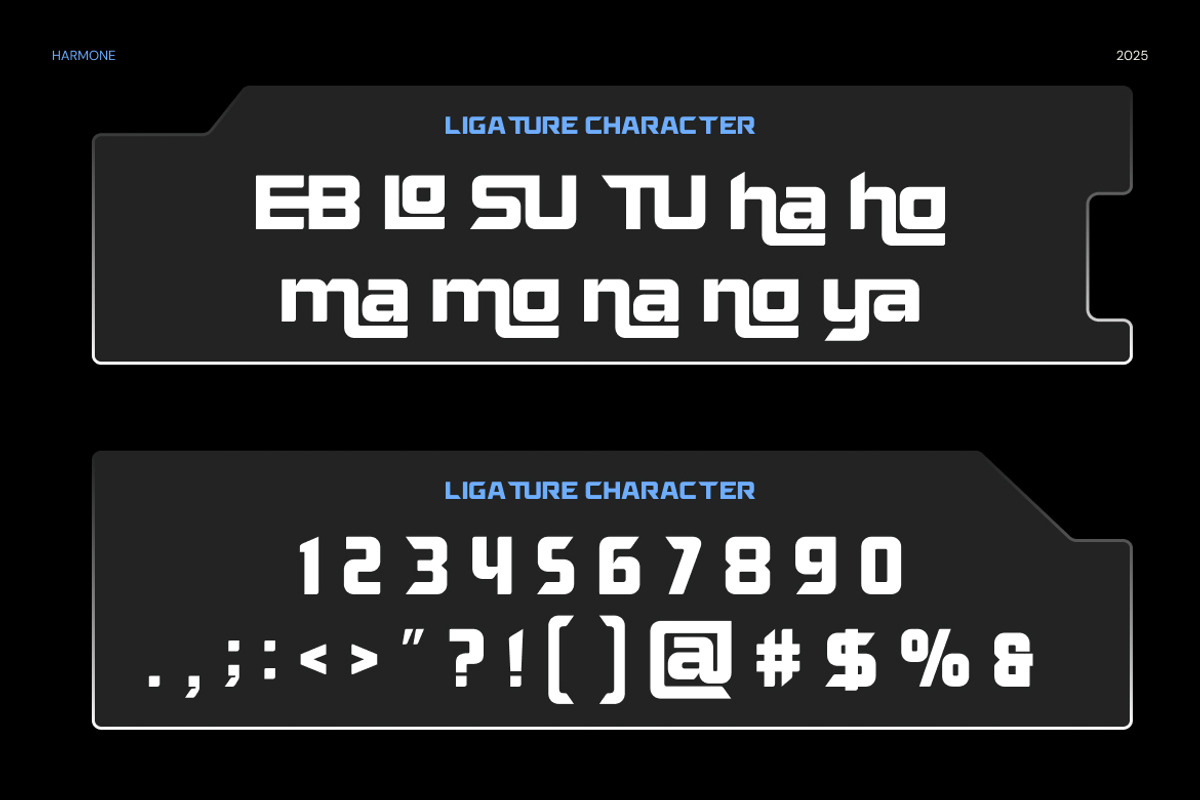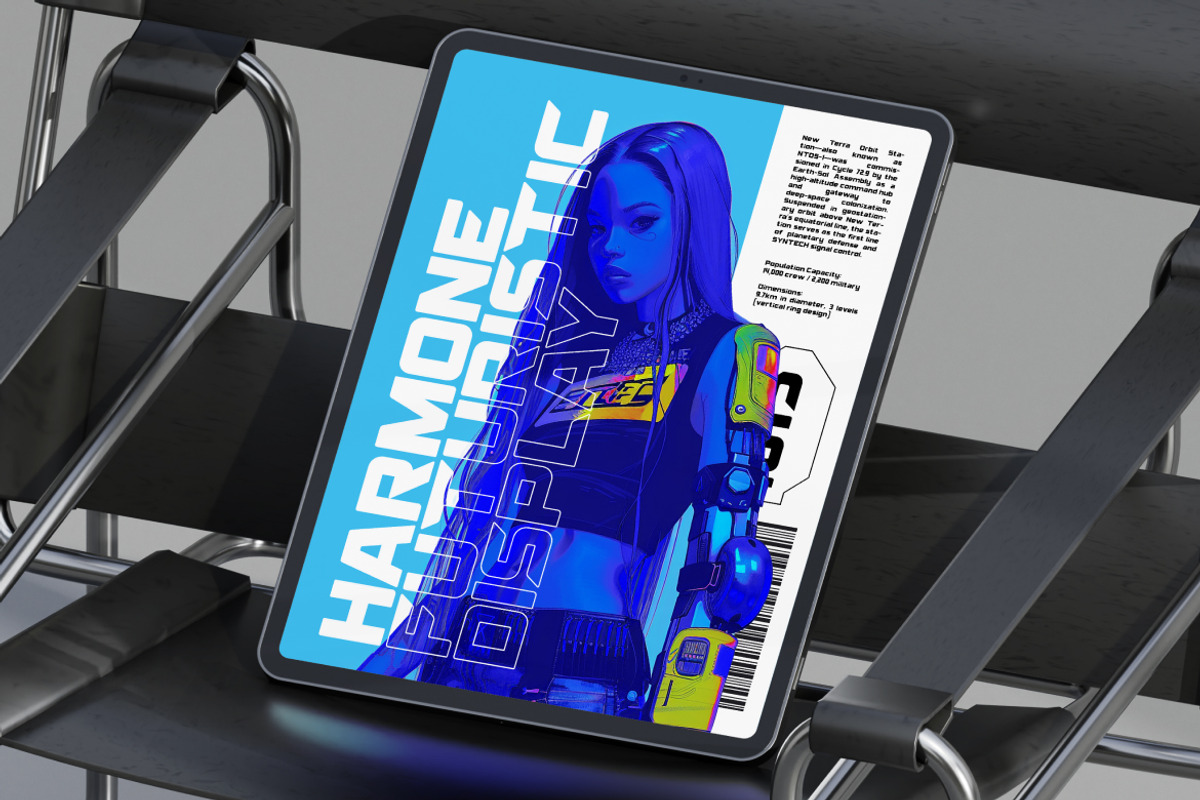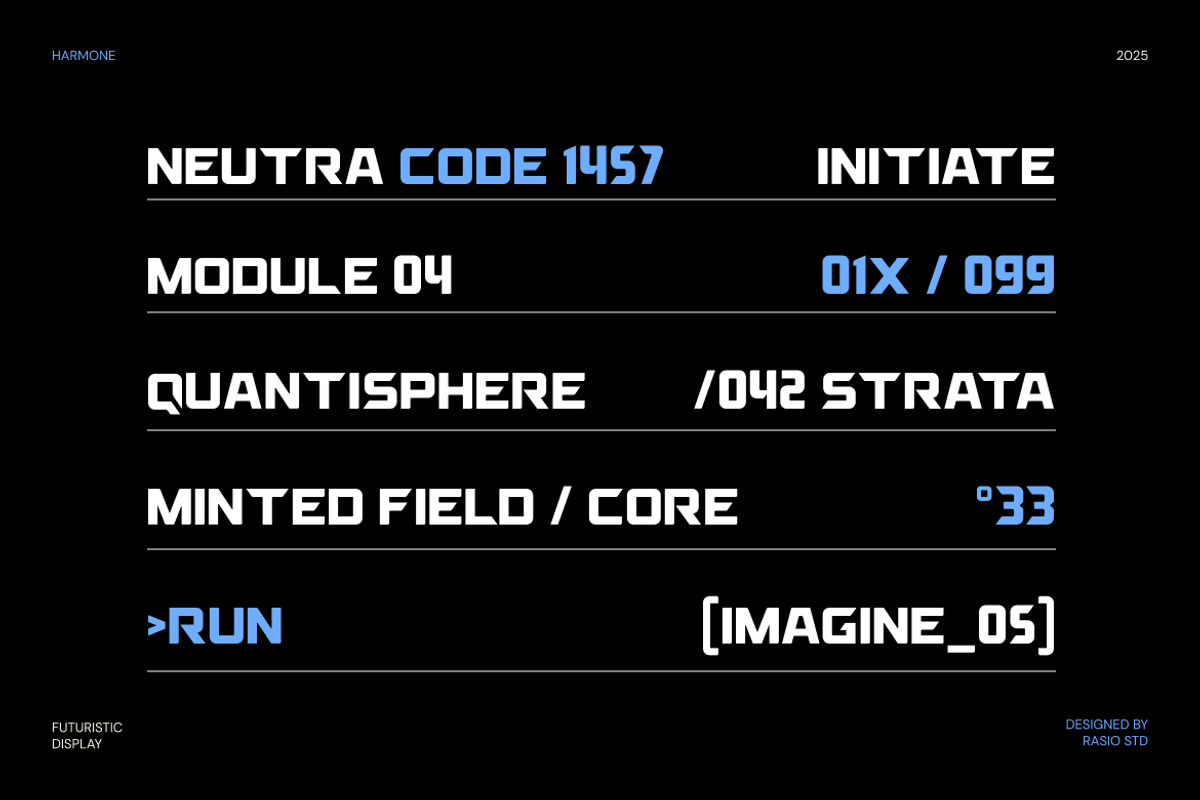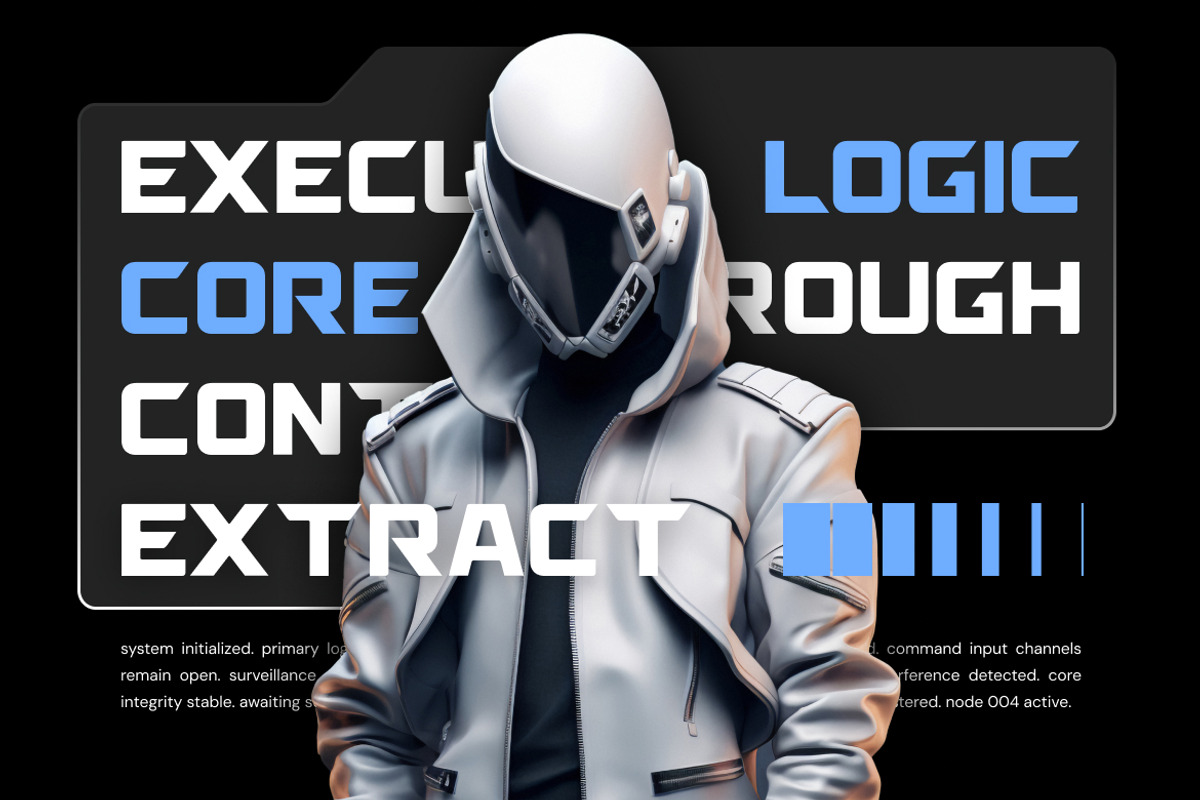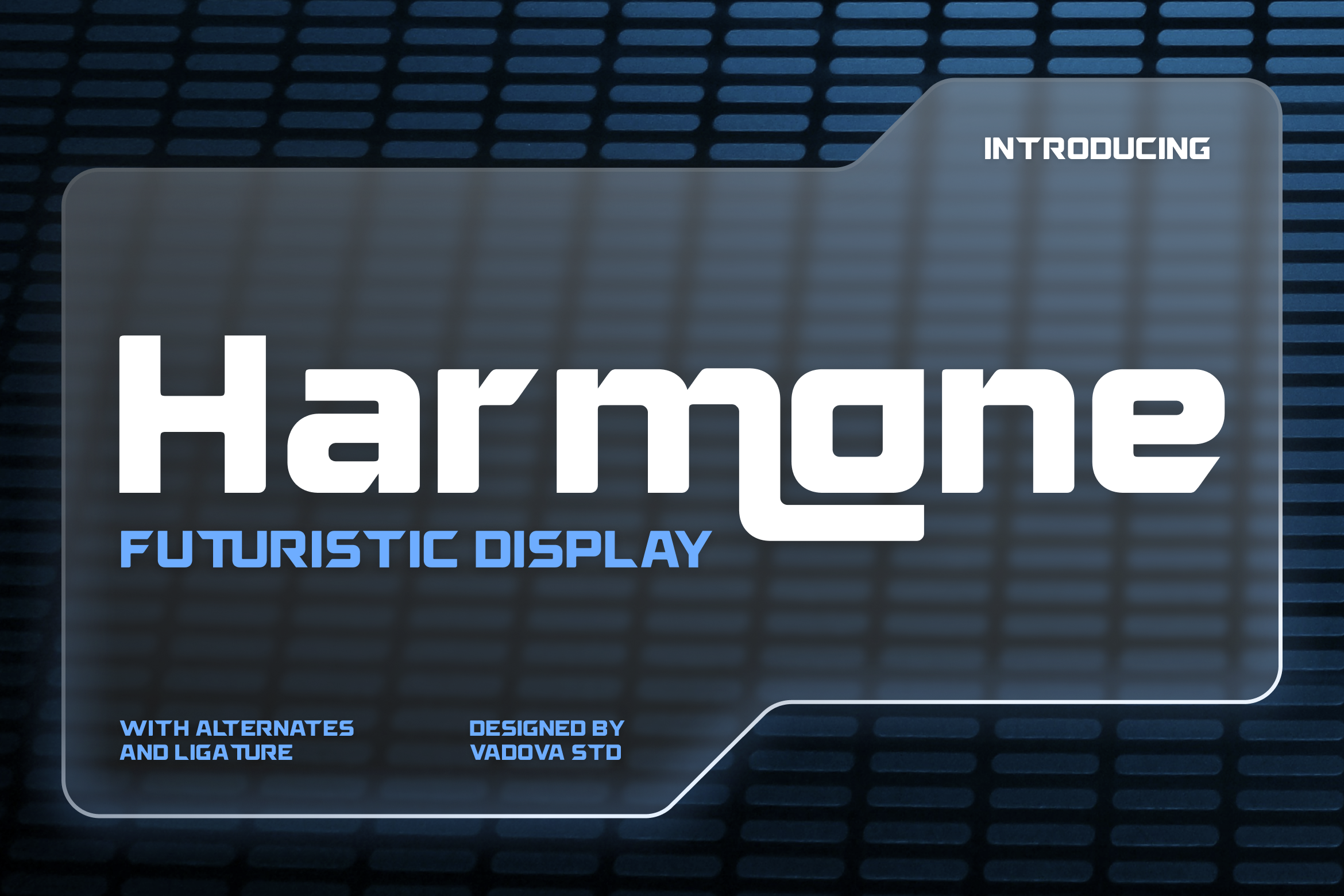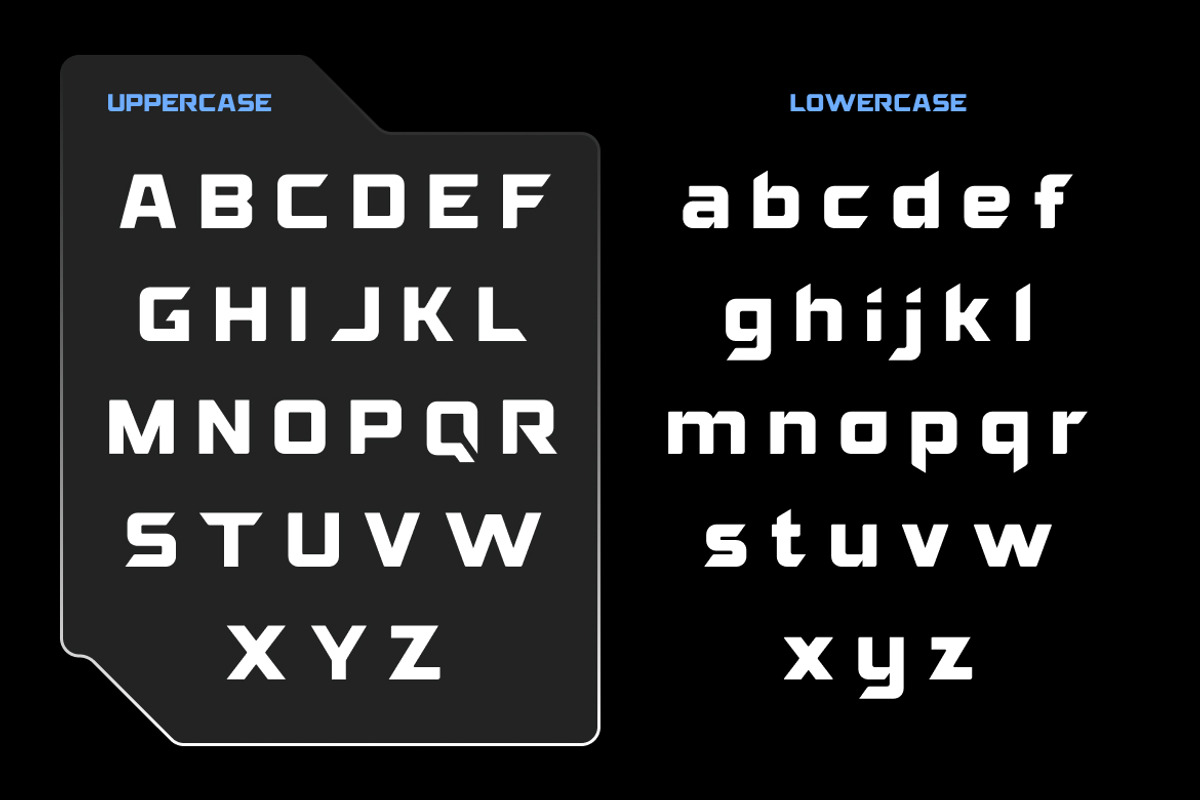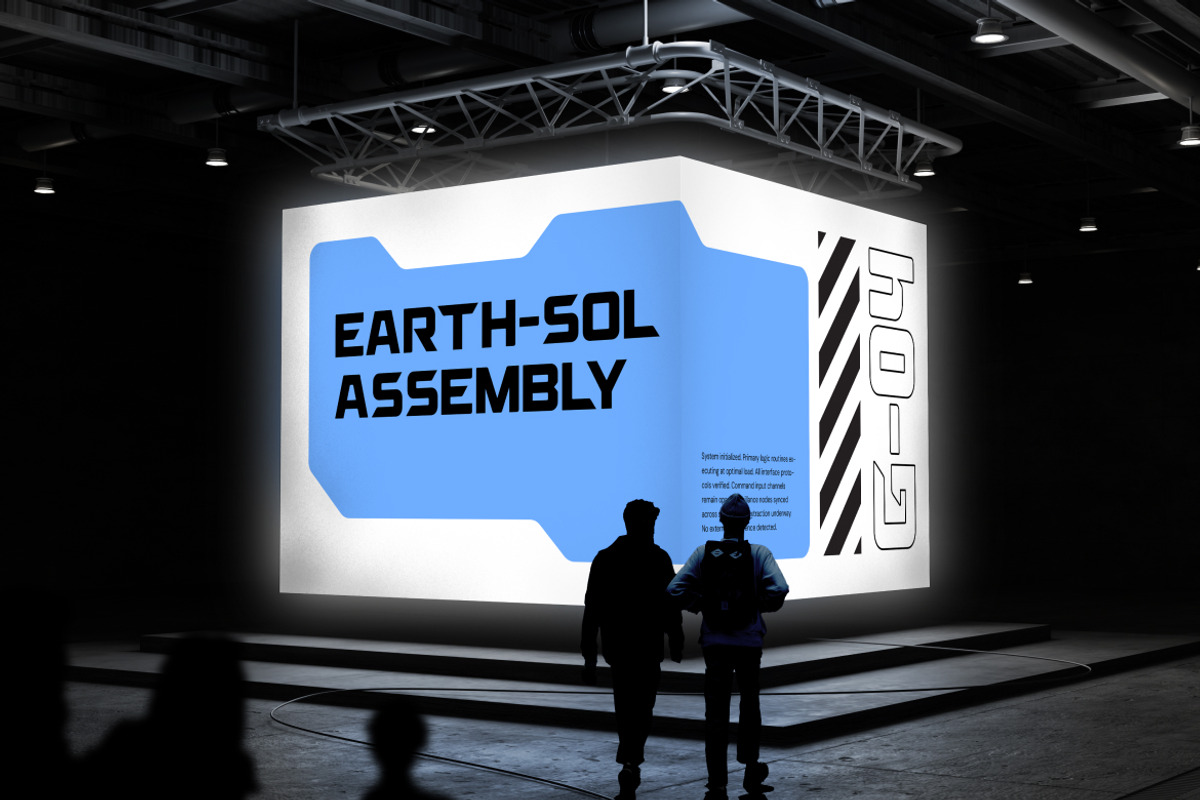
Harmone Futuristic Display Font
Harmone is a futuristic display font built with bold geometric structures, sharp angles, and modern proportions. The letterforms feature clean cuts, consistent stroke weight, and distinctive sci-fi details that create a strong technological character. Designed with both uppercase and lowercase styles, Harmone delivers high visual impact while maintaining clarity and balance.
Harmone is designed for projects that demand a bold and futuristic visual presence, making it suitable for technology branding, gaming and esports visuals, sci-fi posters, digital interfaces, motion graphics, and modern marketing materials where strong display typography is essential.
- Futuristic display construction with bold geometric structure
- Sharp angles and modular details that create a high-tech character
- Clean cuts combined with subtle curves for visual balance
- Consistent stroke weight for strong impact and clarity
- Optimized spacing for powerful headlines and large-scale typography
- Futuristic brand identities for tech, AI, and digital-forward companies
- UI/UX concepts, dashboards, and interfaces with a sci-fi aesthetic
- Gaming, esports, and cyber-themed visuals and titles
- Posters, trailers, and promotional graphics with strong visual impact
- Social media visuals and digital marketing assets with a modern tech tone
Harmone delivers sharp, modern impact for bold visuals